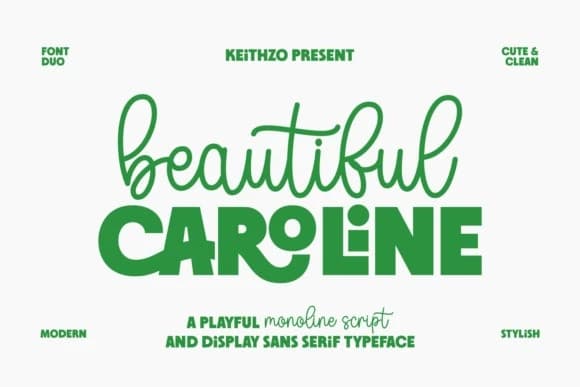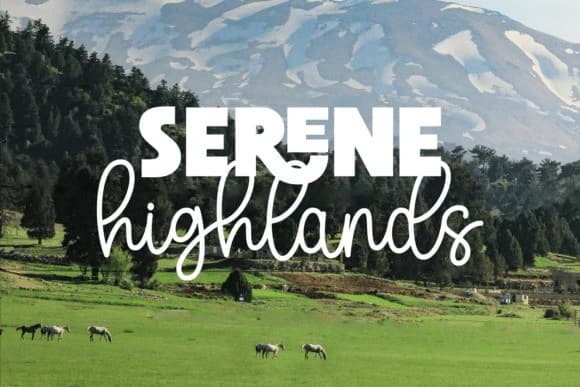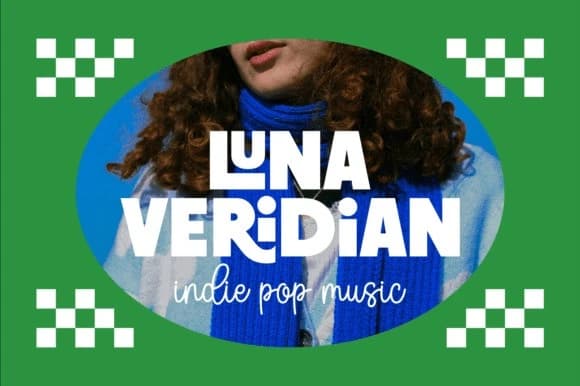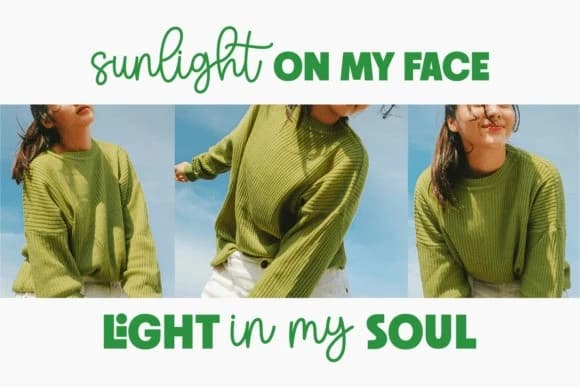
Beautiful Caroline Font Duo
Beautiful Caroline Font Duo A Harmonious Blend of Playful Sophistication. Discover the perfect balance of charm and modern design with Beautiful Caroline, a premium font duo that pairs a fluid monoline script with a bold, character-filled display sans.